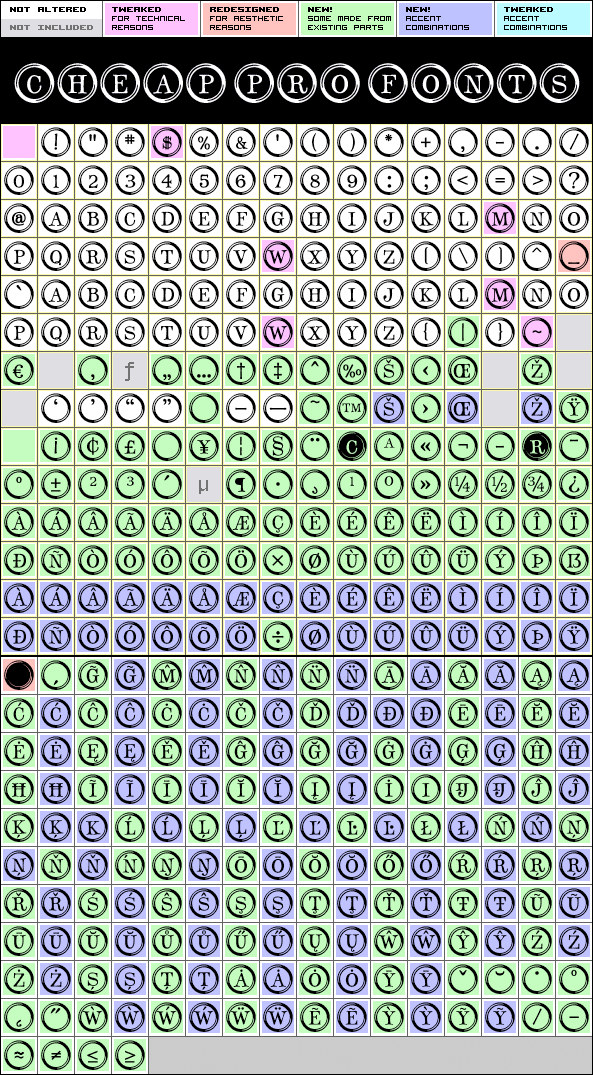
Type Keys Pro
Type Keys Pro by Ronna Penner
Ronna Penner
379 glyphs!
(100 in original)
A range of retro initials mimicking the keys of an old style typewriter - the positive version of our previous release: Type Keys Filled Pro.
Type Keys Pro is a professionally reworked font that contains an extended character set for setting text in 65 languages requiring more than the basic A-Z!